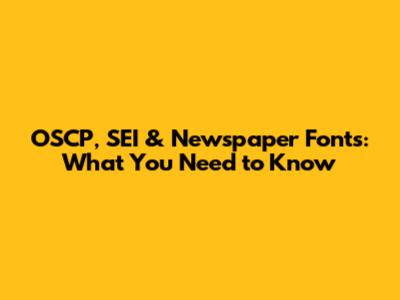
Let's dive into the world of OSCP, SEI, WHATSC, and the fonts that bring newspapers to life. This article will explore each of these topics, providing a comprehensive overview and answering common questions. Whether you're a cybersecurity enthusiast, a software engineering professional, or simply curious about typography, you'll find valuable insights here.
OSCP: Offensive Security Certified Professional
Alright, guys, let's kick things off with OSCP, which stands for Offensive Security Certified Professional. In the cybersecurity realm, OSCP is a big deal! It's a certification that validates your skills in penetration testing. Basically, it proves you know your stuff when it comes to finding vulnerabilities in systems and networks. Unlike some certifications that rely heavily on theoretical knowledge, OSCP is very hands-on. You have to demonstrate your ability to exploit real-world systems in a lab environment. This is what makes it so highly regarded in the industry.
Why OSCP Matters
The OSCP certification is more than just a piece of paper; it's a testament to your practical skills. When you're OSCP certified, you're showing potential employers that you can actually do the work, not just talk about it. Many job descriptions in the cybersecurity field specifically list OSCP as a preferred or required qualification. It opens doors to roles like penetration tester, security analyst, and ethical hacker. Plus, the process of preparing for the OSCP exam is incredibly valuable. You'll learn a ton about various hacking techniques, tools, and methodologies.
Preparing for the OSCP
So, how do you get OSCP certified? Well, it's not a walk in the park. The exam is notoriously challenging, requiring a deep understanding of networking, operating systems, and security concepts. Most people start by taking the Penetration Testing with Kali Linux (PWK) course offered by Offensive Security. This course provides a solid foundation and introduces you to the tools and techniques you'll need for the exam. But the course alone isn't enough. You'll need to put in a lot of practice time, working through vulnerable machines on platforms like HackTheBox and VulnHub. The key is to be persistent, methodical, and willing to learn from your mistakes.
The OSCP Exam
The OSCP exam is a 24-hour practical exam where you're tasked with compromising several machines in a lab environment. You'll need to identify vulnerabilities, exploit them, and gain access to the systems. After the 24 hours, you have another 24 hours to write a detailed report documenting your findings and the steps you took to compromise the machines. The report is just as important as the actual hacking. It demonstrates your ability to communicate your findings clearly and effectively. Passing the OSCP exam requires a combination of technical skill, problem-solving ability, and effective communication.
SEI: Software Engineering Institute
Now, let's shift our focus to SEI, which stands for Software Engineering Institute. The SEI is a federally funded research and development center operated by Carnegie Mellon University. It's dedicated to advancing software engineering, cybersecurity, and artificial intelligence. The SEI conducts research, develops tools and techniques, and provides training and consulting services to government and industry organizations. Their work helps organizations build and maintain high-quality, secure, and reliable software systems.
What the SEI Does
The Software Engineering Institute's work spans a wide range of areas, including software architecture, software testing, cybersecurity, and AI. They develop models and frameworks for designing and building complex software systems. They research and develop techniques for identifying and mitigating software vulnerabilities. And they work to advance the state of the art in artificial intelligence and machine learning. The SEI also plays a key role in developing standards and best practices for the software engineering industry.
Key Initiatives of the SEI
One of the SEI's most well-known initiatives is the Capability Maturity Model Integration (CMMI). CMMI is a framework for improving software development processes. It provides a structured approach for organizations to assess their current processes and identify areas for improvement. CMMI has been widely adopted by organizations around the world and has been shown to improve software quality, reduce development costs, and increase customer satisfaction. The SEI also conducts research on software assurance, which focuses on ensuring that software systems are secure, reliable, and trustworthy. This research helps organizations build and deploy software that meets their security and performance requirements.
SEI and Cybersecurity
Cybersecurity is a major focus area for the SEI. They conduct research on a variety of cybersecurity topics, including vulnerability analysis, malware detection, and incident response. The SEI also develops tools and techniques for securing software systems and networks. They work with government and industry organizations to help them improve their cybersecurity posture. The SEI's cybersecurity expertise is highly sought after, and they play a key role in helping organizations protect themselves from cyber threats.
Newspaper Fonts: The Art of Readability
Okay, let's switch gears and talk about newspaper fonts. The font used in newspapers is a critical element of their design. It directly impacts readability and the overall reading experience. Newspaper fonts are typically chosen for their clarity, legibility, and space efficiency. They need to be easy to read in long blocks of text and also allow for a high word count per page to save on printing costs. Different newspapers may choose different fonts, but there are some common characteristics they all share.